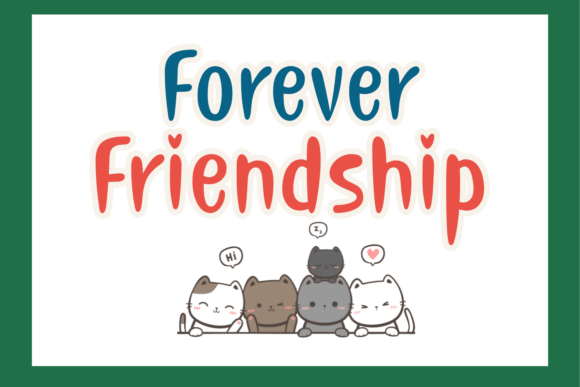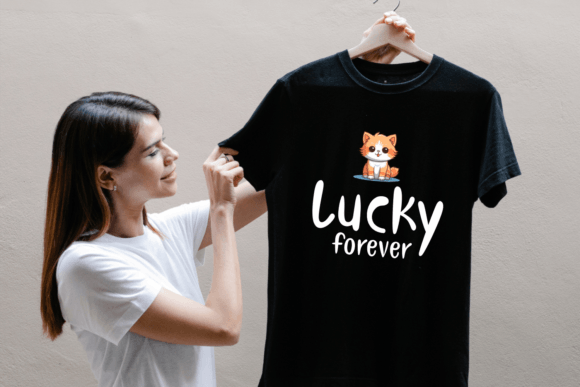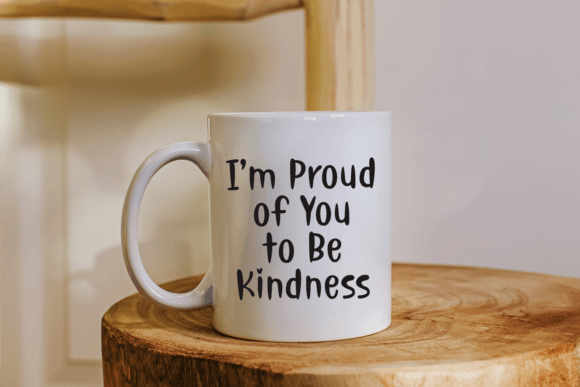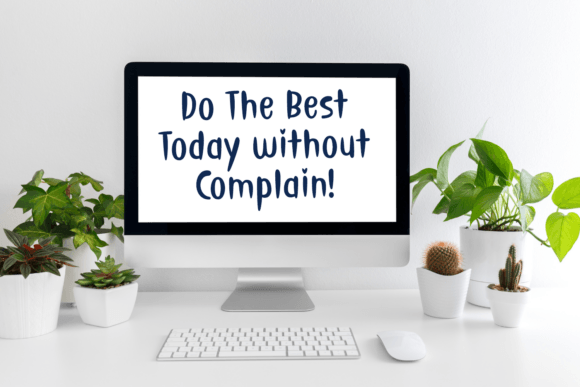
Introduction to Midnight Season Font Font
Fonts play a crucial role in design, and the Midnight Season Font font is a typeface that brings both character and versatility to any project. Whether you’re working on a branding project, a website, or a print design, the Midnight Season Font font offers a unique style that can elevate your work.
Introducing Midnight Season font, an appealing handwritten typeface that adds an unbeatable charm to any design.
Ideal for those aiming to convey their emotions, dreams, and life experiences through the poetic language of typography, this font infuses personality and creativity into every letter, ensuring your thoughts are expressed with an engaging vibrancy Midnight Season font is perfect for captivators and dreamers, its handcrafted details breathe life into every piece, making your work not just seen but truly felt.
Key Features of Midnight Season Font Font
Why Choose Midnight Season Font Font?
The Midnight Season Font font is more than just a typeface – it’s a design tool that helps you communicate your message with style and clarity. Its unique character set and versatile design make it suitable for a wide range of applications, from elegant invitations to bold headlines.
With its carefully crafted letterforms and balanced proportions, the Midnight Season Font font ensures readability and visual appeal across all mediums.
What makes Midnight Season Font font special?
The Midnight Season Font font stands out with its unique design, exceptional readability, and versatility across various design applications.